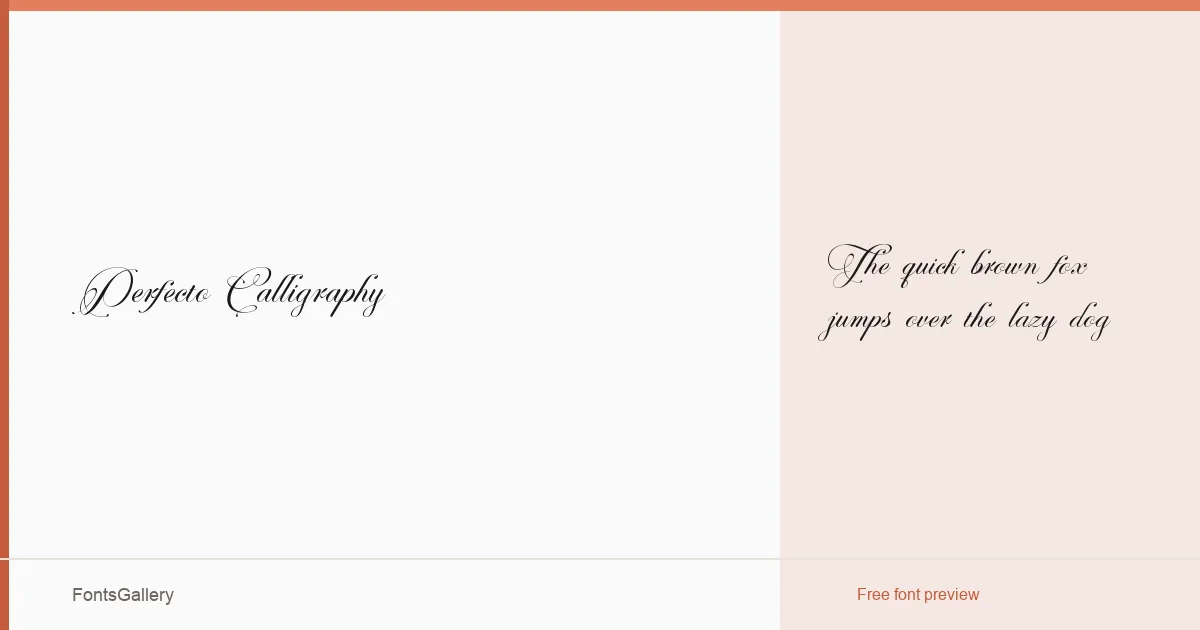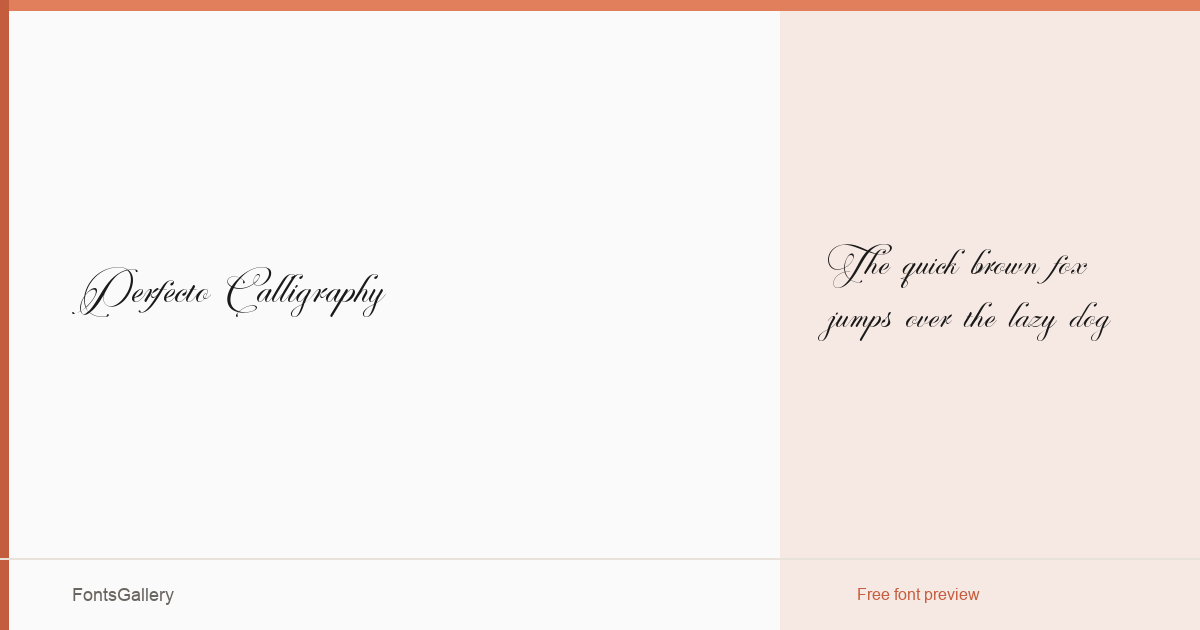
About Perfecto Calligraphy Font
Perfecto Calligraphy is an elegant script typeface crafted by designer Thomas Aradea. It embodies a sense of luxury and romance, making it a standout choice for projects that demand a refined, classic aesthetic. Its flowing calligraphic style evokes timeless sophistication and heartfelt warmth.
Perfecto Calligraphy features graceful, sweeping letterforms rooted in traditional calligraphic tradition, lending each character an air of elegance and classic beauty. The fluid strokes and romantic curves give the typeface a luxurious quality that feels both polished and personal. Every letter is designed to flow naturally into the next, creating a harmonious and visually captivating rhythm.
This typeface is ideally suited for logos, wedding stationery, invitation cards, greeting cards, and certificates where an elevated, romantic tone is essential. Its classic elegance makes it especially compelling for bridal and luxury brand presentations. Perfecto Calligraphy pairs beautifully with Aresink for an all-script combination, or with Helvetica for a balanced contrast between ornate calligraphy and clean, modern sans-serif type.